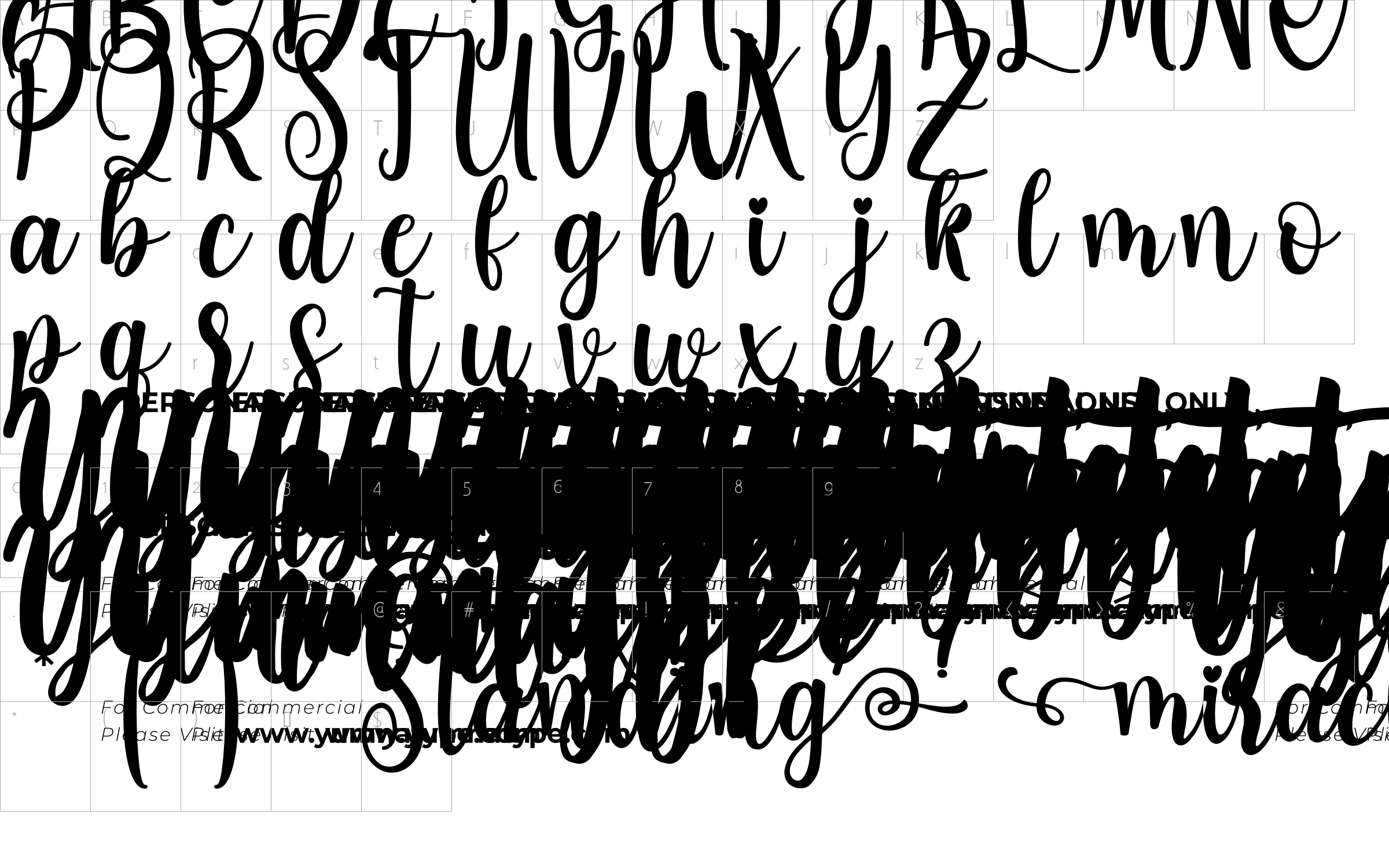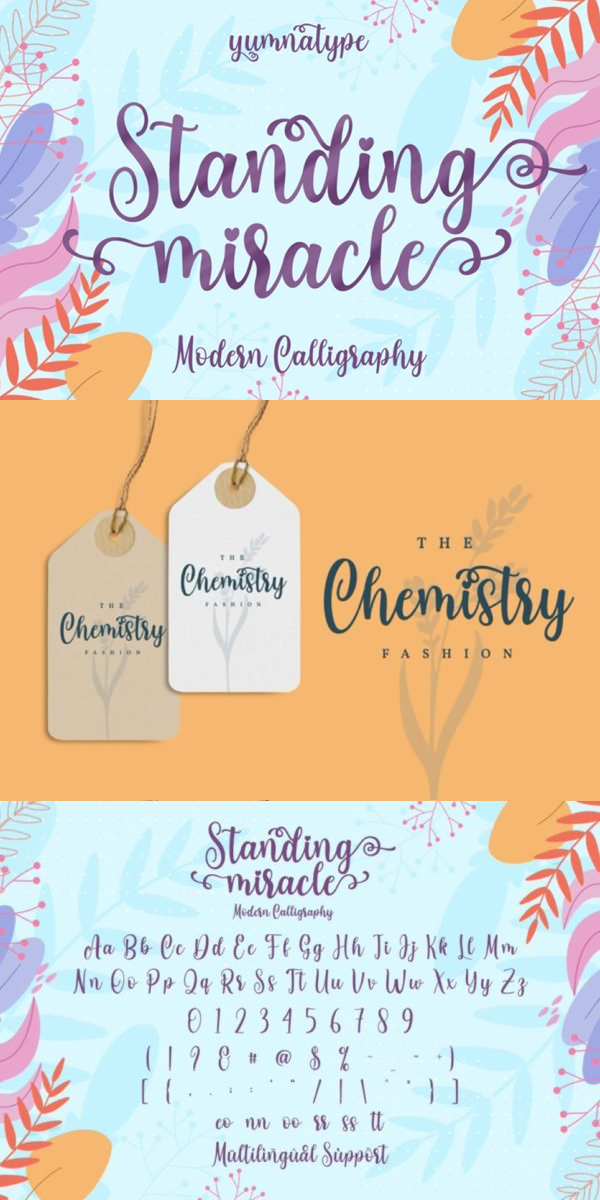
Standing Miracle Font
About Standing Miracle
Standing Miracle is a beautiful script font with a natural and unique design will make your project more beautiful and powerful. The font is suitable for your branding project and any design.
-11 Alternates
-6 Ligatures
-52 Swashes